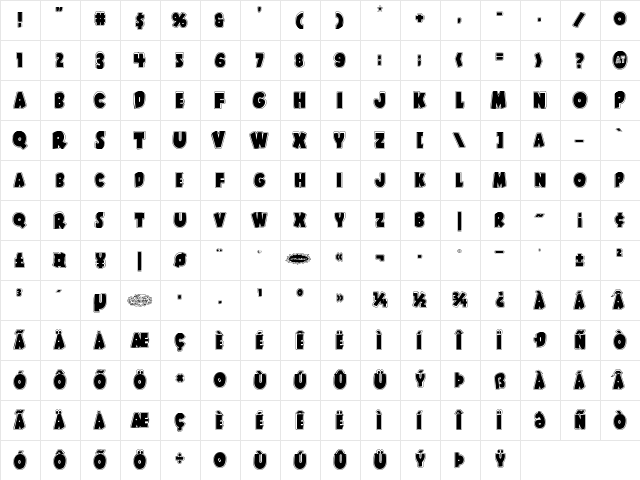
Shablagoo Academy Regular
Design Context for Shablagoo Academy Typeface
Shablagoo Academy is a composed and adaptable typeface that performs quietly and consistently across a wide range of design contexts.